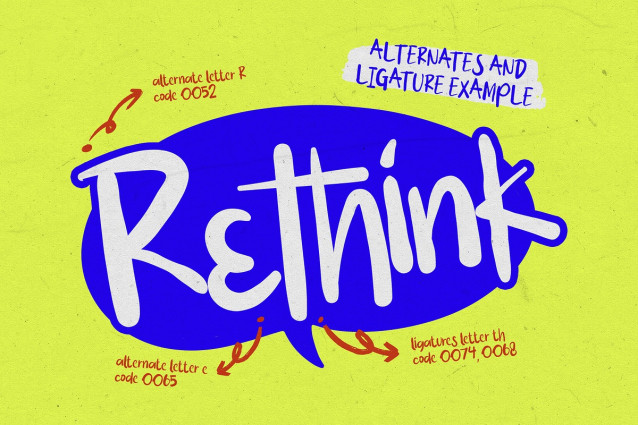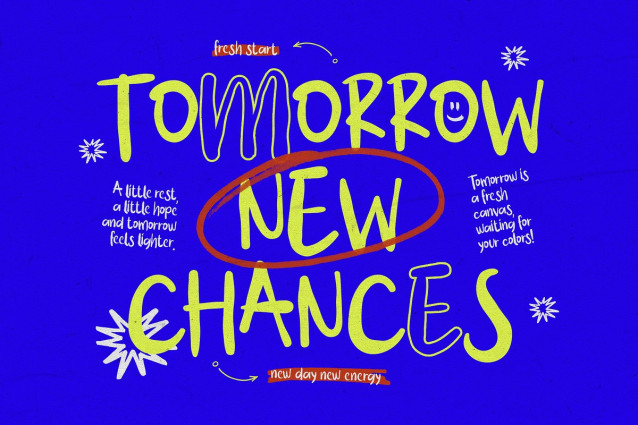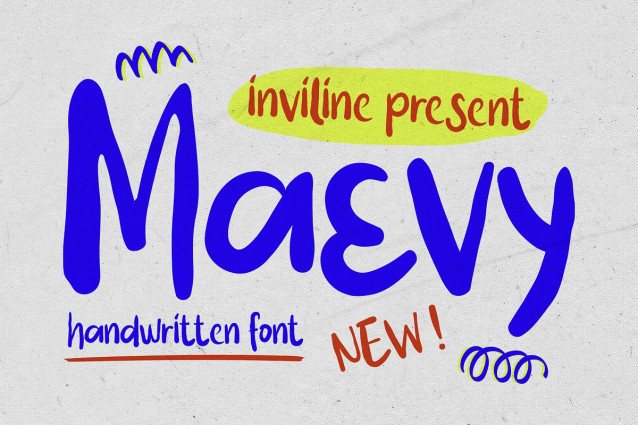
Maevy Font
Maevy Font – Brush Handwritten Font is a stylish and versatile typeface designed to mimic the natural, fluid strokes of hand-drawn lettering. With its casual, organic appearance, it adds a personal and artistic touch to designs, making it ideal for creative projects, branding, invitations, and social media graphics. Its varied stroke widths and slightly irregular shapes give it an authentic, human feel, perfect for conveying warmth and creativity.
Uppercase & Lowercase Characters: Fully designed for a complete typographic experience
Numerals & Punctuation: All the numbers and punctuation marks you need for any design task
Multilingual Support: Includes characters for multiple languages, ensuring global usability
High-Quality Design: Each font is crafted with attention to detail, ensuring a polished and professional look